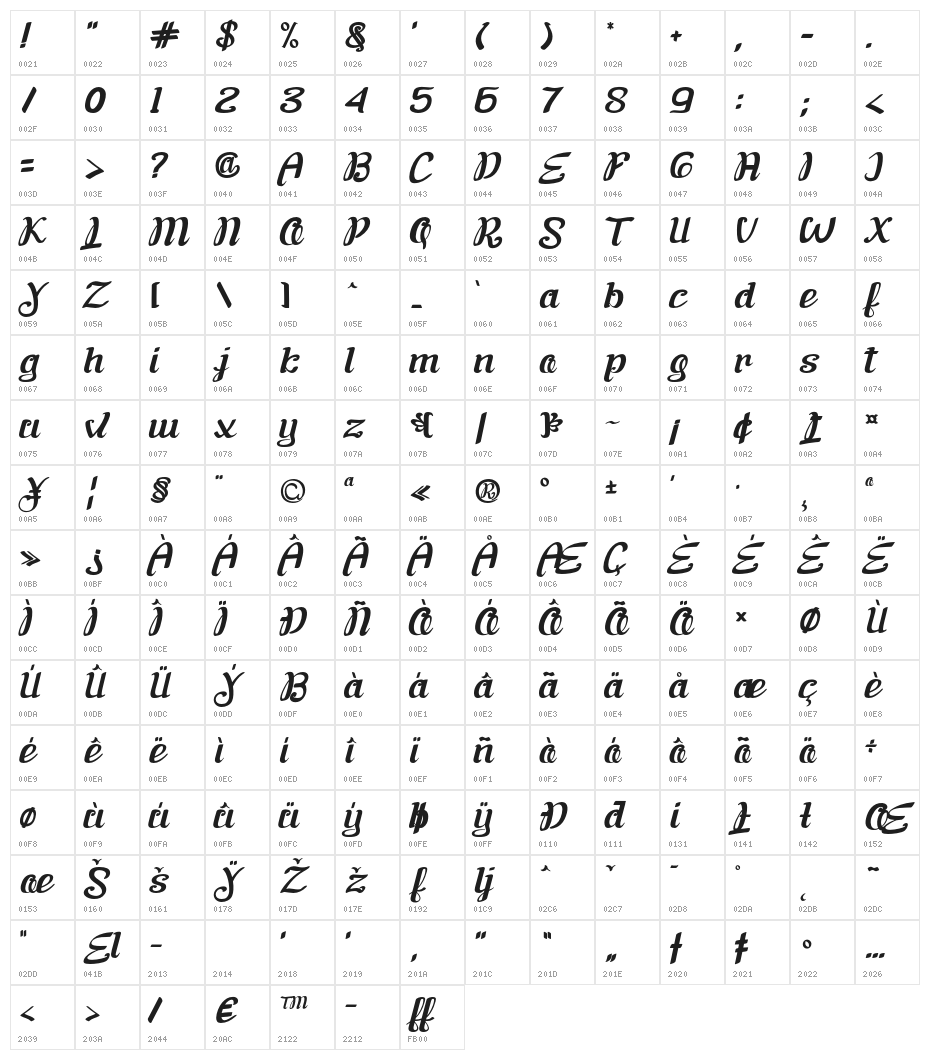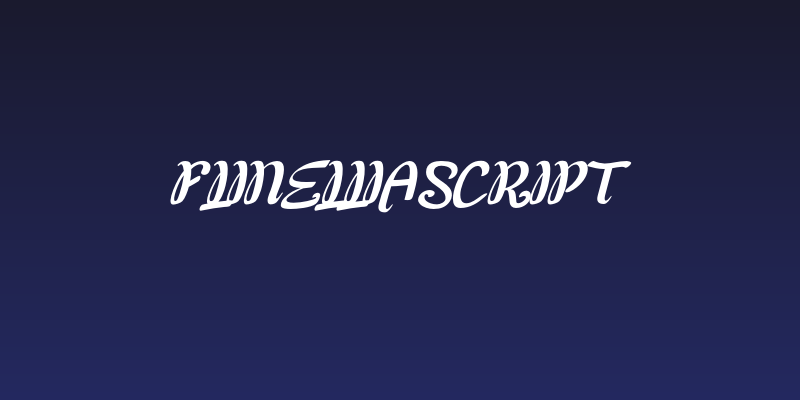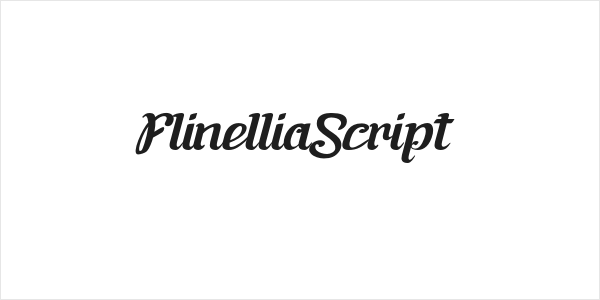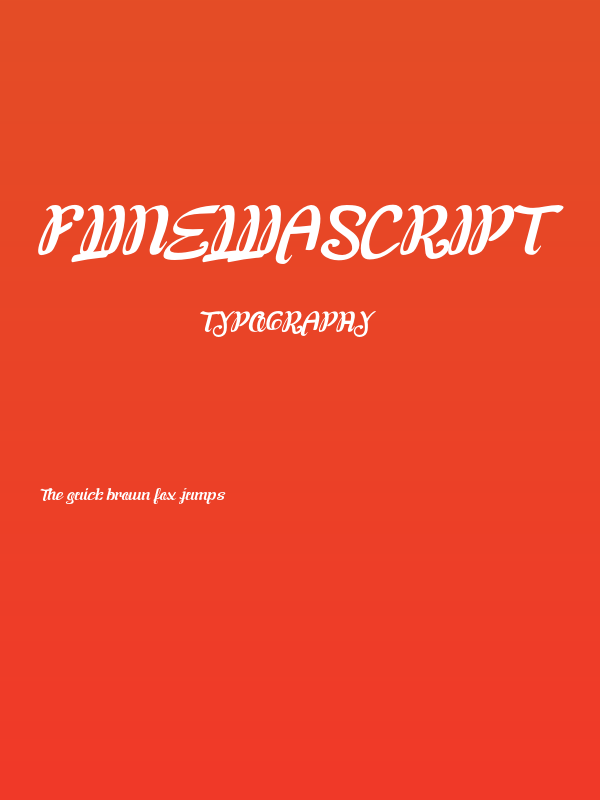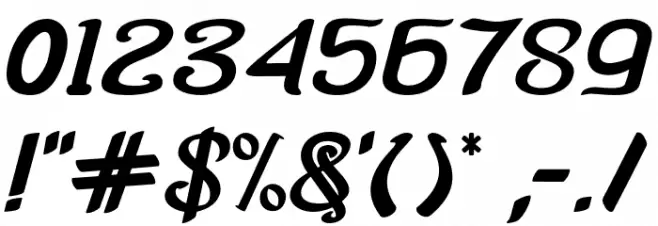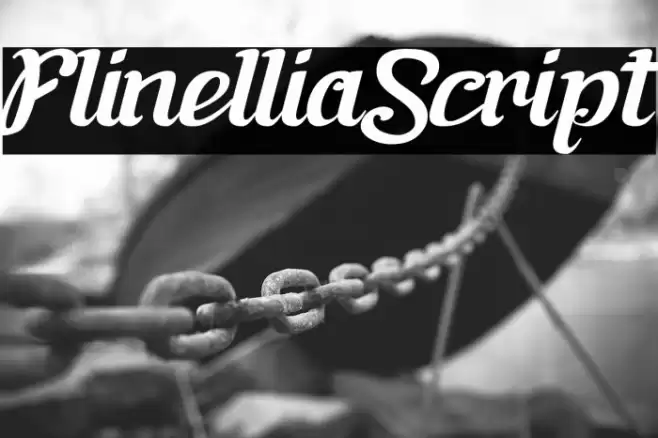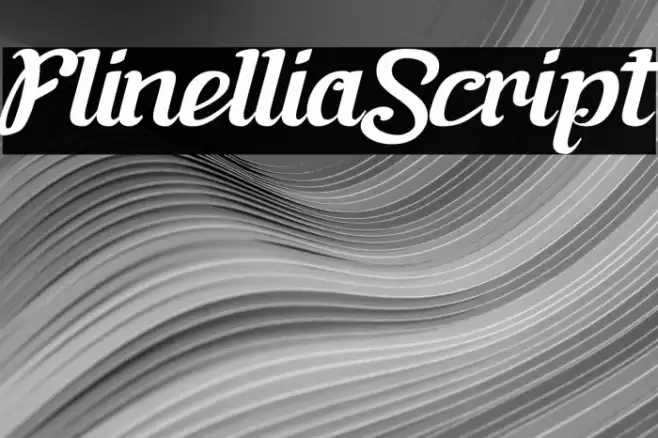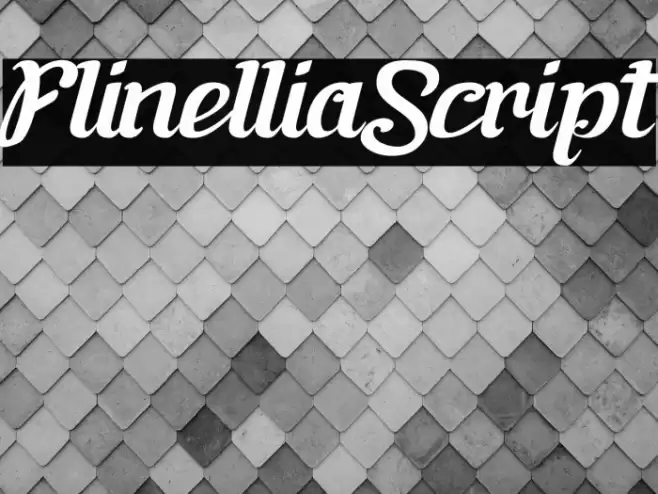
FlinelliaScript Font
FlinelliaScript Description
This script font exudes elegance and fluidity, characterized by its smooth, flowing strokes and cursive style. The uppercase letters are bold and slightly slanted, giving a sense of movement and grace. The lowercase letters maintain a consistent style, with rounded forms and connected strokes that enhance readability while preserving the decorative nature of the script. Numbers and special characters follow the same aesthetic, ensuring a cohesive look across all text elements. This font is ideal for projects that require a touch of sophistication and artistic flair.
| Proposed Projects | Ideal for wedding invitations, greeting cards, logos, and branding materials that require a sophisticated touch. |